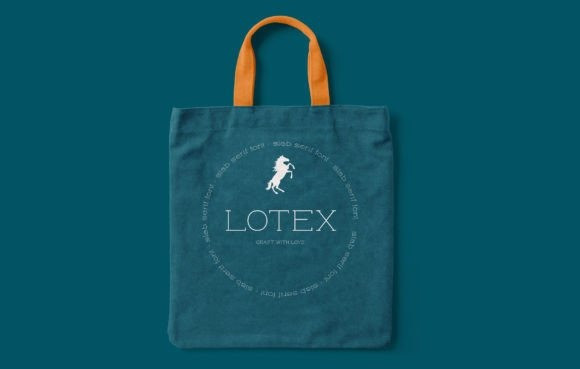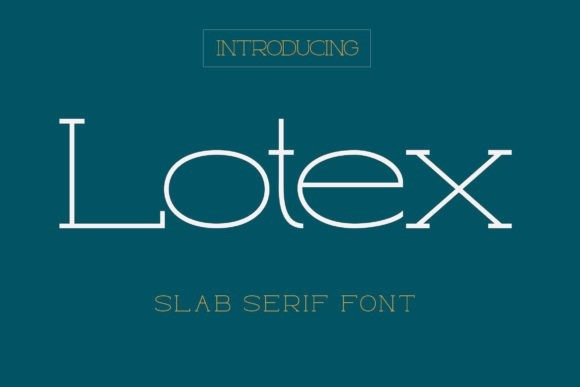
Lotex Font
Lotex Font is a Slab serif with solid font files. it is based on the compact solid font, by combining a variety of styles. Suitable for Logos, greeting cards, quotes, posters, branding, name card, stationary, design title, blog header, art quote, typography, etc.